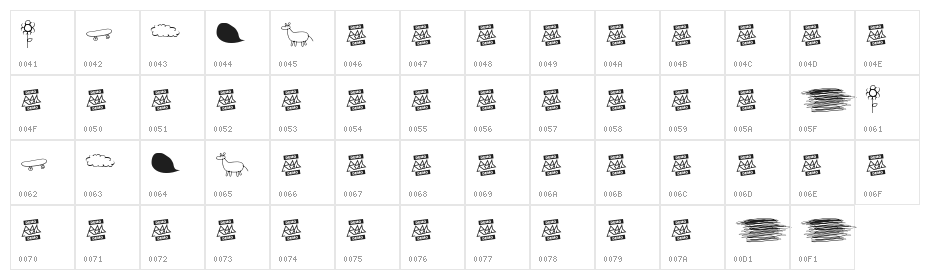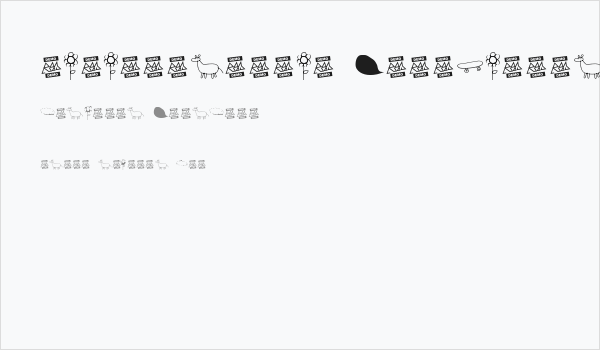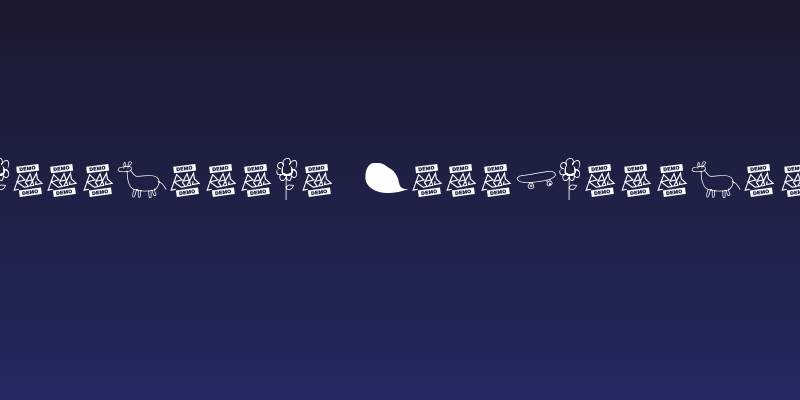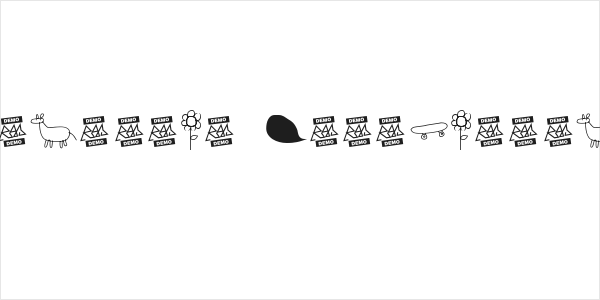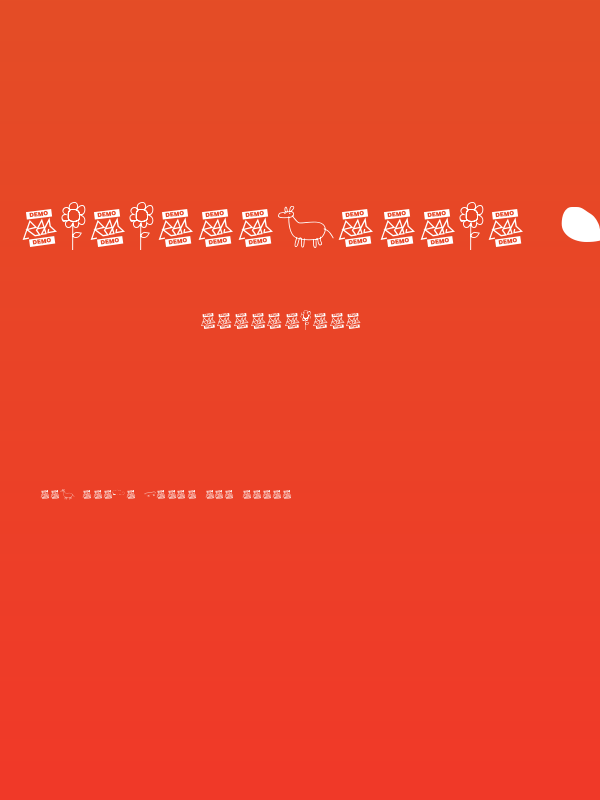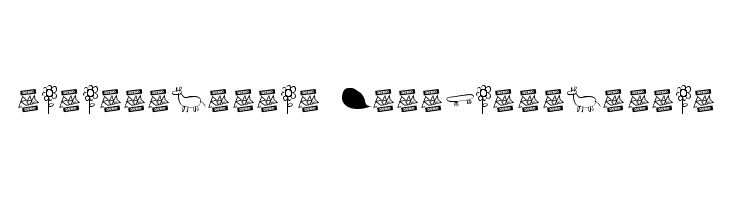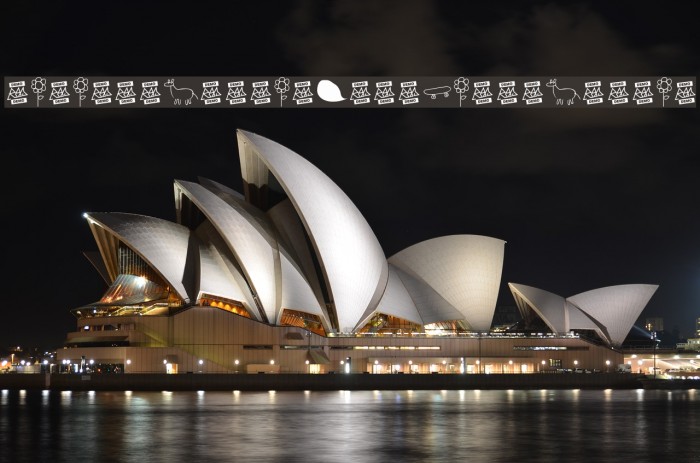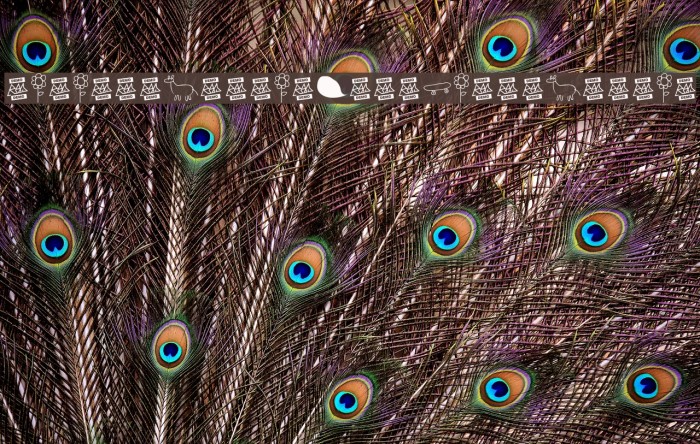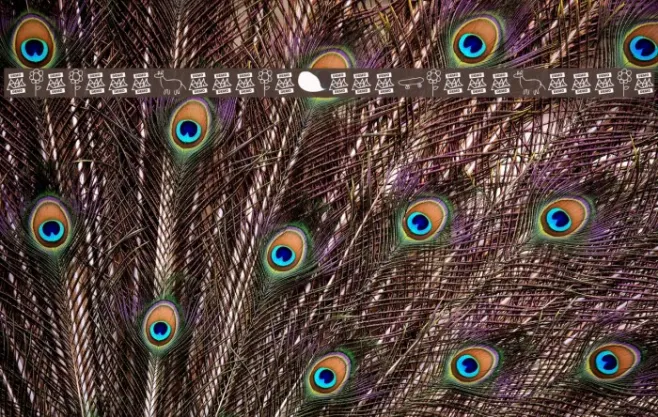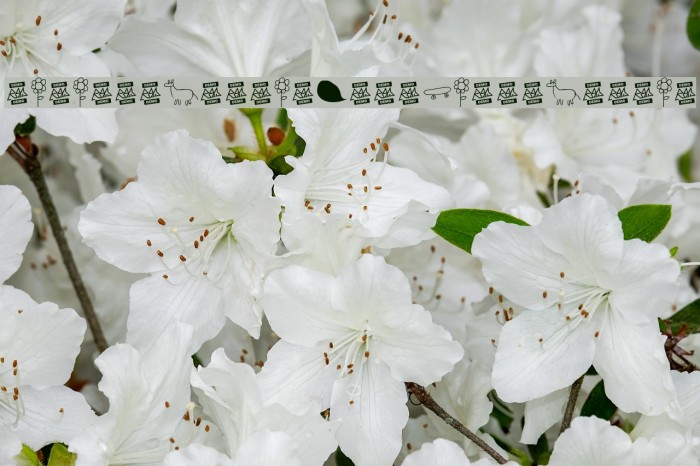
Rayairregular DingbatsRegular Font
Rayairregular DingbatsRegular Description
This set features a playful and whimsical collection of dingbats, including simple line drawings of flowers, skateboards, clouds, and animals. The style is casual and hand-drawn, with a focus on fun and creativity. Each symbol is distinct and easily recognizable, making them suitable for various decorative purposes. The designs are clean and minimalistic, allowing for easy integration into projects that require a touch of humor or lightheartedness. The overall aesthetic is informal and approachable, perfect for adding a unique flair to any design.
| Overall Style | Whimsical, Playful |
| Use Case | Decorative elements, Illustrations |
| Proposed Projects | Ideal for children's books, playful invitations, creative posters, and educational materials. |